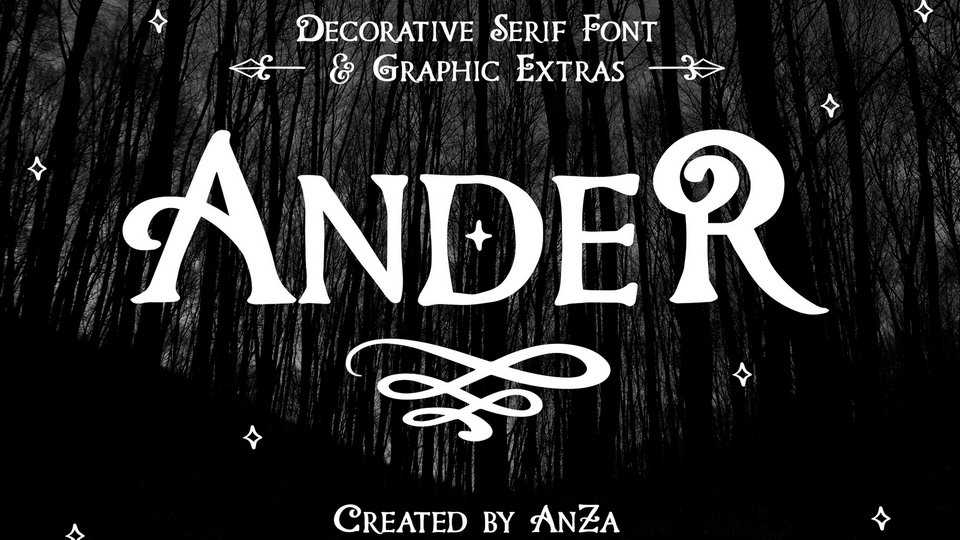
Download Ander typeface, a carefully crafted, hand-drawn decorative serif font family consisting of clean and brush rough version with graphic extras.
Designer: Anna Zakharchenko